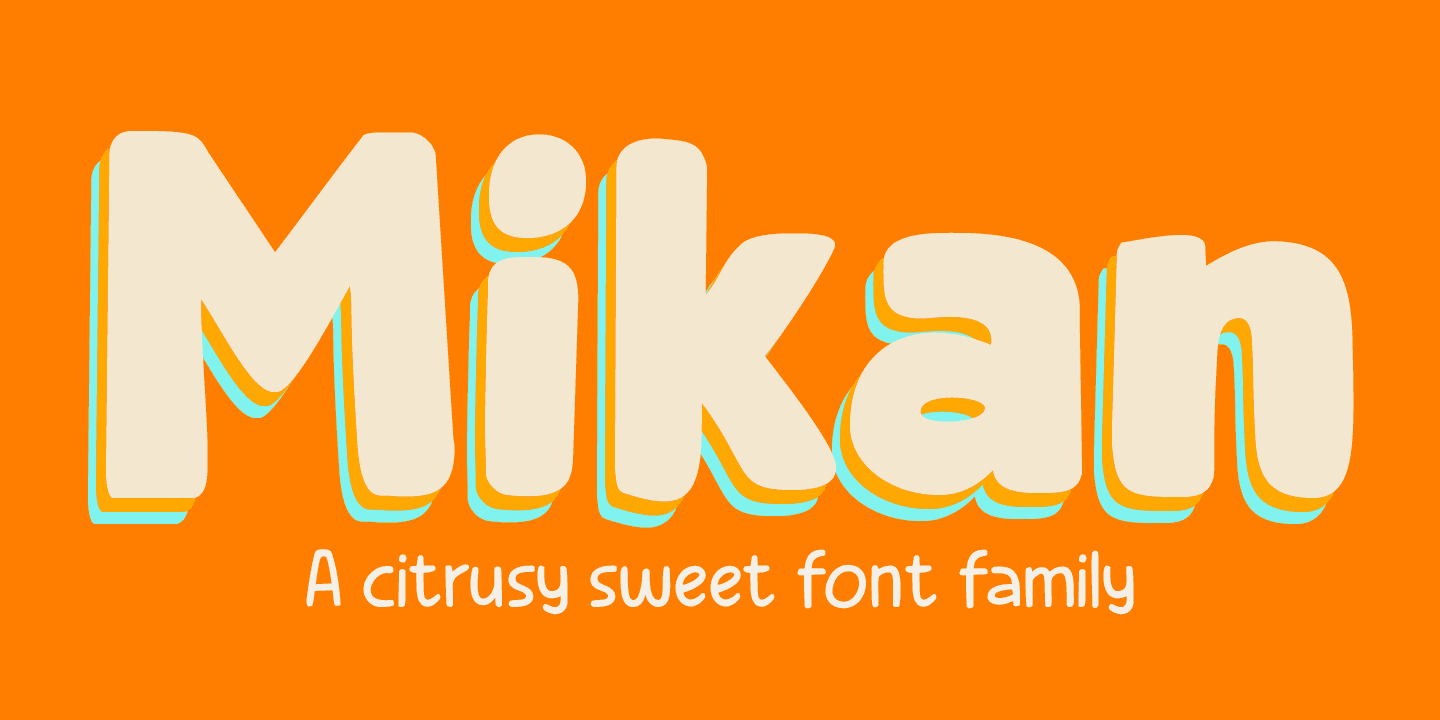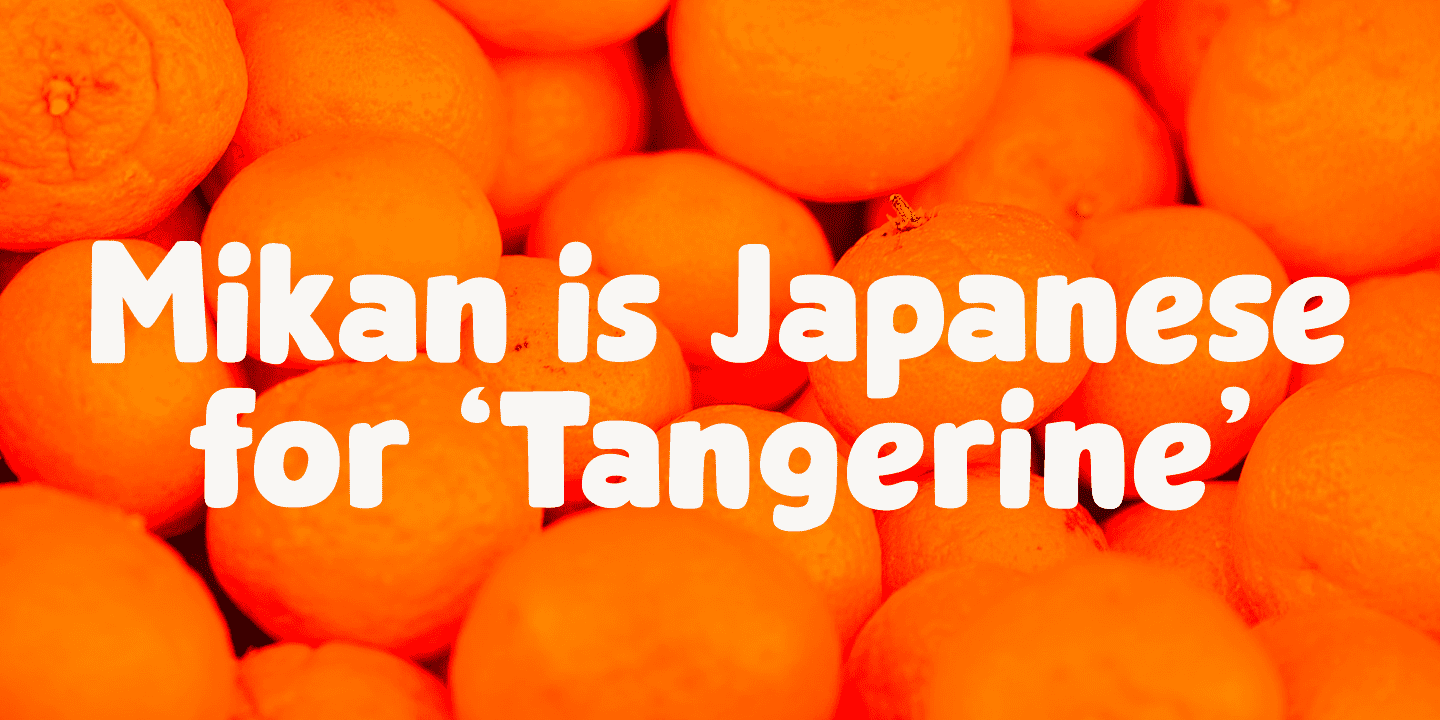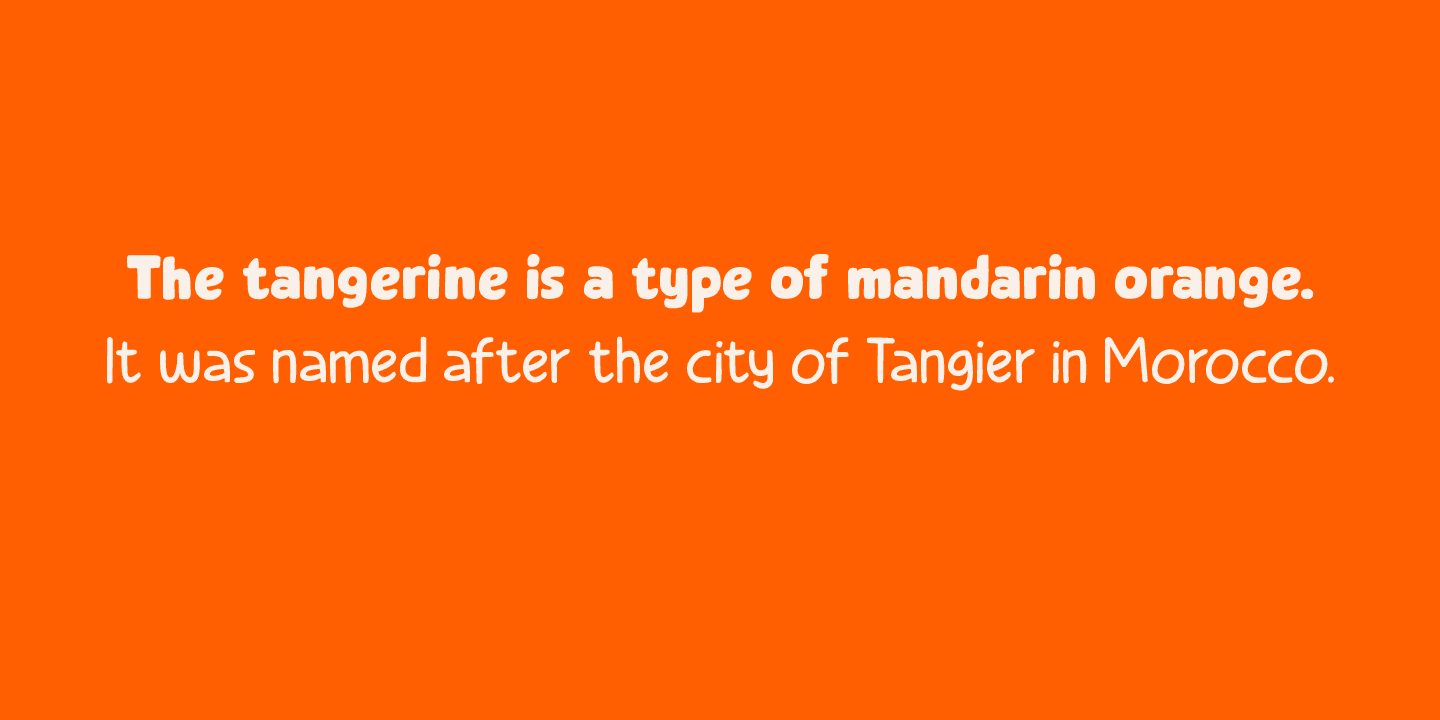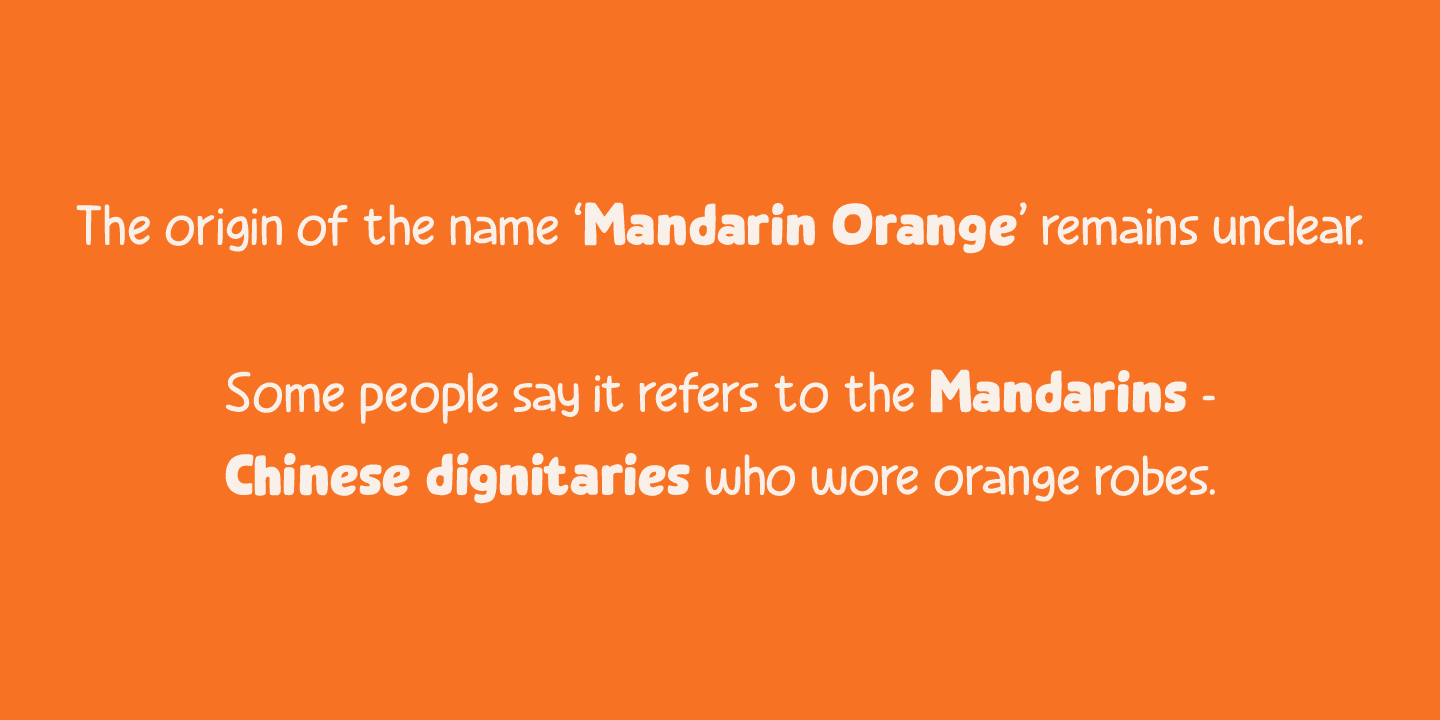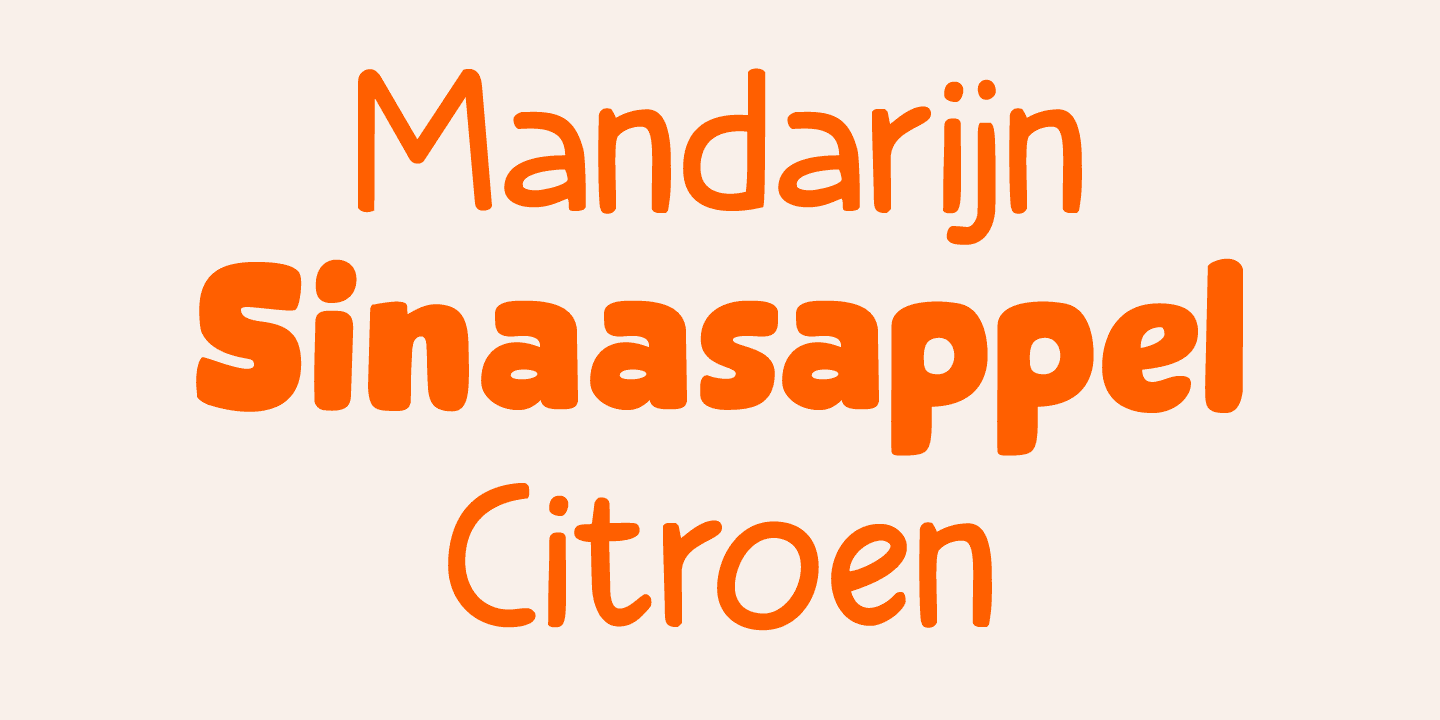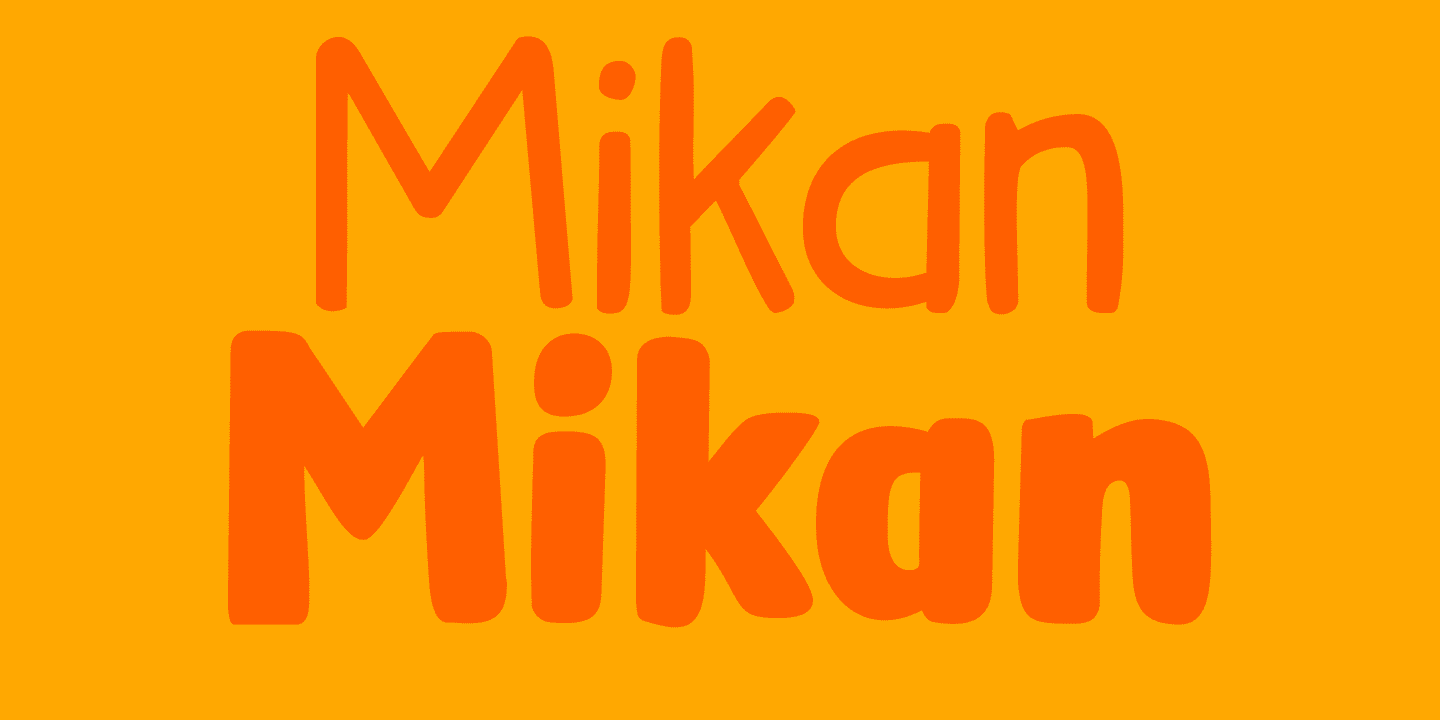
Mikan Family (4 fonts)
So, I had to think of that when I made this font.
Mikan is a nice, rounded family of fonts. Both styles come with alternative a’s (and accented a’s), which some people prefer for Children’s books.